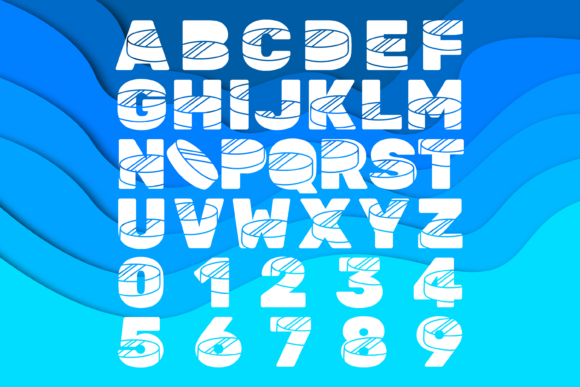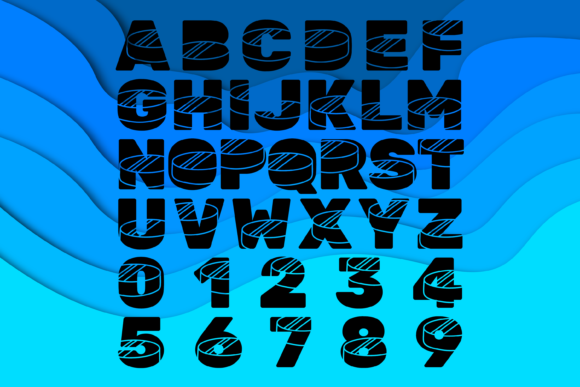
Adding a Touch of Winter to Your Designs
There’s something magical about creating something from scratch. Maybe it’s the spark of an idea, the rush of bringing it to life, or the satisfaction of seeing it come together. Whatever it is, it’s a feeling that never gets old. And for designers, it’s a thrill that comes with every new project.
One of the key elements that can elevate a design from good to great is the font. That’s why we’re excited to introduce you to the Ice Hockey Font, a stunning decorative font that’s perfect for adding a touch of winter wonder to your creations. Whether you’re working on custom designs, DIY crafts, or just want to give your projects a lovely touch, this font is an amazing choice.
As a designer, you know the importance of having the right tools at your disposal. The Ice Hockey Font is a valuable addition to any toolkit, offering a unique and eye-catching style that’s sure to impress. So why not give it a try and see what amazing creations you can come up with?
Ice Hockey Font Key Features
- Character Set: This font includes a comprehensive set of characters, including uppercase and lowercase letters, numbers, punctuation, and special symbols, as well as unique hockey-related glyphs.
- Unique Characteristics: The Ice Hockey Font features a bold, dynamic design with a distinctive hockey-themed aesthetic, making it perfect for sports-related projects, such as team logos, scoreboards, and promotional materials.
Designer Review: “Ice Hockey Font”
Overall, I think “Ice Hockey Font” has some great qualities, but it also falls short in a few areas. ✨ Let’s start with the good stuff.
- ✨ The font has a really cool, modern aesthetic that’s perfect for sports branding and merchandise.
- ✨ The bold, chunky letters really stand out and grab your attention.
- ✨ The font is highly customizable, with plenty of options for color, size, and style.
However, there are a few things that don’t quite work for me. ⚠️ Here are some limitations to consider:
- ⚠️ The font can feel a bit overwhelming at larger sizes, which can make it difficult to read.
- ⚠️ The font’s unique shape can make it tricky to use in certain contexts, such as body text or fine print.
- ⚠️ There’s not a lot of nuance or subtlety to the font, which can make it feel a bit one-dimensional.
Overall, I think “Ice Hockey Font” is a solid choice for sports branding and merchandise, but it’s not the best option for every project. With a bit of careful planning and consideration, this font can be a real winner.
Tips for Getting the Most Out of Ice Hockey Font
Here are some tips to help you get the most out of Ice Hockey Font:
- Use it for sports-themed designs, such as hockey jerseys or sports equipment.
- Pair it with other bold fonts to create a striking visual effect.
- Experiment with different font sizes and colors to create a unique design.
Some common use cases for Ice Hockey Font include:
- Hockey jerseys and equipment design.
- Sports-themed posters and flyers.
- Brand logos and identity design.